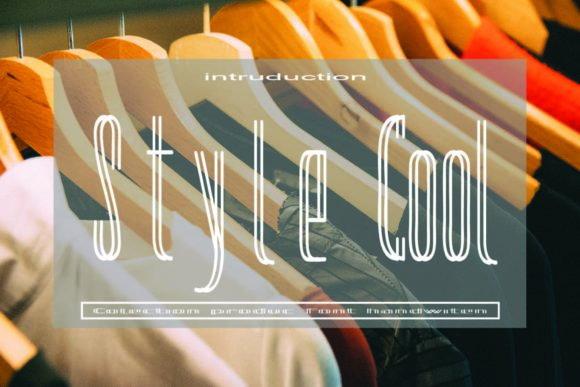
In the realm of visual artistry, where letters dance and words take flight, Style Cool Font emerges as a breathtaking masterpiece, a font family that will leave you spellbound. With its display prowess, this typeface transcends the ordinary, inviting you to embark on a typographic odyssey that ignites passion and sets the stage for unforgettable designs.
Step into a world where elegance and modernity entwine, where each character is meticulously crafted to evoke a sense of timeless beauty. Style Cool Font's neat and beautiful arrangement of letters elevates your designs, transforming them into visual symphonies that captivate and inspire. Experience the allure of a font family that breathes life into your creative visions, whether you seek formal sophistication or a touch of casual charm.
With Style Cool Font, your designs will radiate an aura of sophistication, making a lasting impression on your audience. This remarkable font family possesses an inherent versatility, effortlessly adapting to a myriad of design styles. Let your imagination soar as you explore the boundless possibilities, from wedding invitations that exude romance to marketing materials that command attention.
Indulge in a font family that empowers you to express your individuality, to share your stories, and to make an indelible mark on the world. Embrace the transformative power of Style Cool Font and watch as your designs blossom into captivating works of art.